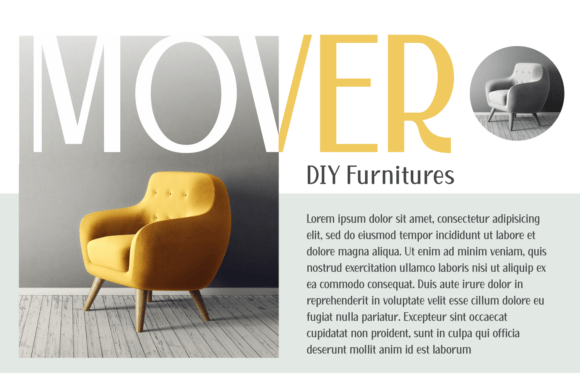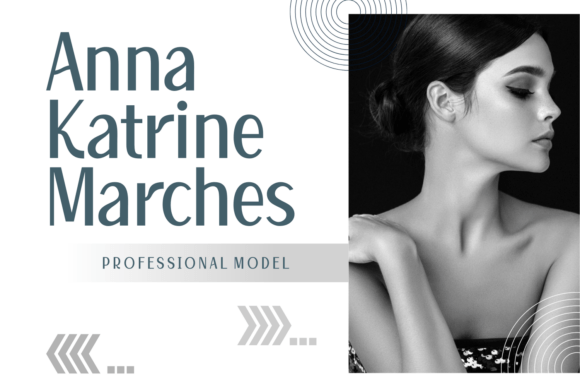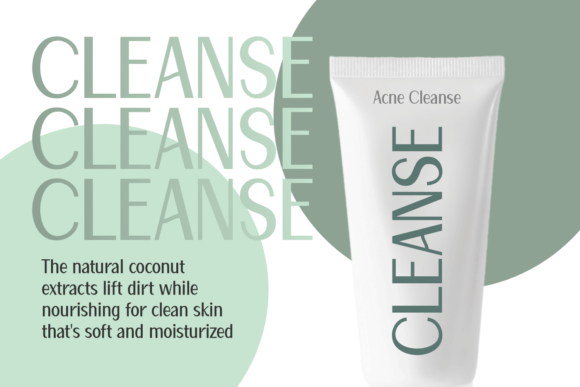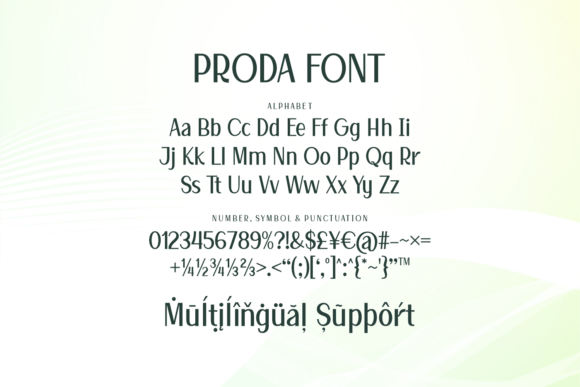
Introduction to Proda Font
Have you ever stared at a blank canvas, searching for the perfect font to bring your creative project to life? For many designers, this is a moment of both excitement and frustration. The right font can make all the difference, elevating your design from good to great.
That’s where the Proda Font comes in – a stunning sans serif font that exudes elegance and sophistication. With its high-contrast design and refined character, it’s perfect for luxury branding and headlines. Whether you’re working on a free download or a high-paying design project, the Proda Font is a valuable resource that’s sure to impress.
As a design resource, the Proda Font offers a high-quality solution for designers looking to create a seamless and cohesive visual identity. Its versatility and modern aesthetic make it an ideal choice for a wide range of creative projects, from branding and advertising to editorial and digital design.
Key Features of Proda Font
- High-quality design resource ideal for creative projects, offering a unique and modern style.
Honest Review: Proda Font
I recently had the chance to work with the Proda Font, and I must say it’s been a delightful experience. As a designer, I’m always on the lookout for high-quality design resources that can elevate my creative projects.
- ✨ High-quality design with a modern feel
- ✨ Versatile and suitable for various design projects
However, there are a few limitations to consider. The font selection is relatively limited, and it may not be suitable for more complex or custom designs.
- ⚠️ May not be suitable for complex designs
Overall, I’m impressed with the Proda Font and would definitely recommend it for any design project that requires a high-quality, modern font.
Common Use Cases for Proda Font
Proda Font is ideal for creative projects that require a high-quality, unique font. It’s perfect for use in branding, marketing materials, and other design projects where a transparent background is not required. Some common use cases for Proda Font include:
- Marketing materials, such as brochures and flyers
Tips for Getting the Most Out of Proda Font
To get the most out of Proda Font, use it in combination with a high-quality image or background. You can also experiment with different font sizes and colors to create a unique and eye-catching design. Additionally, consider using Proda Font in conjunction with other design resources, such as icons and graphics, to create a cohesive and professional-looking design.